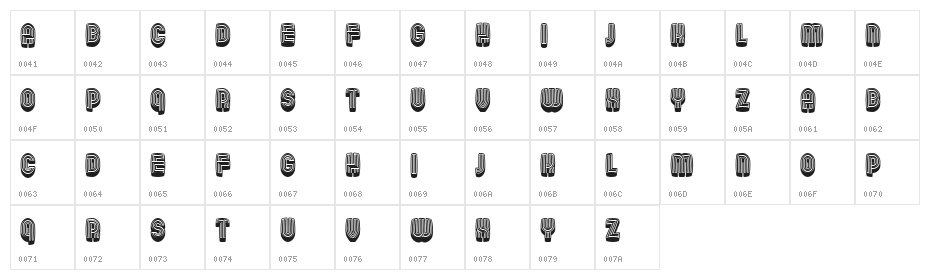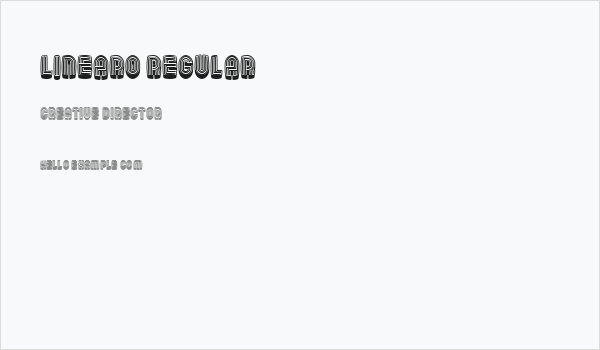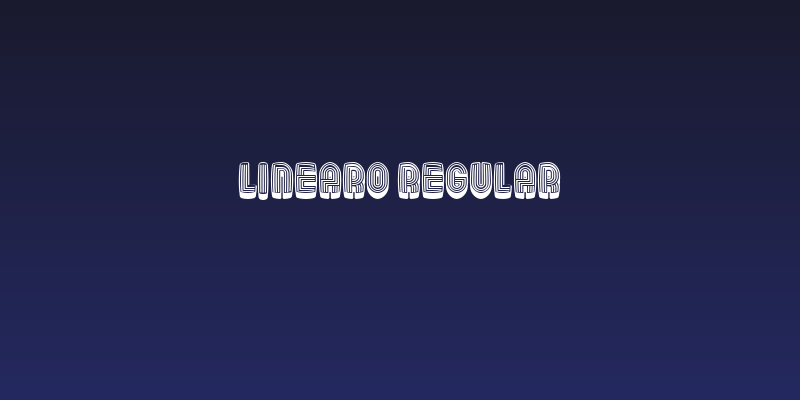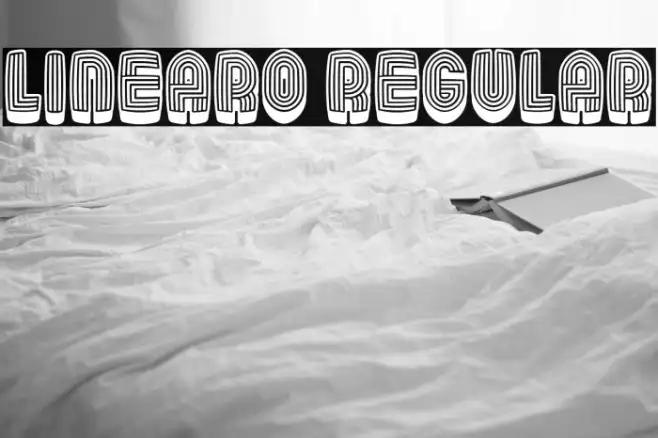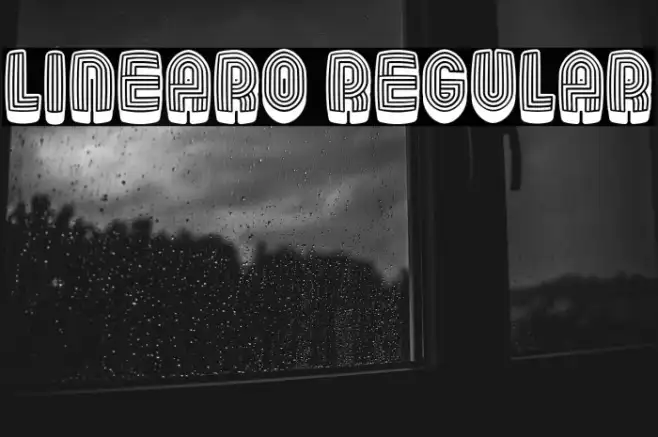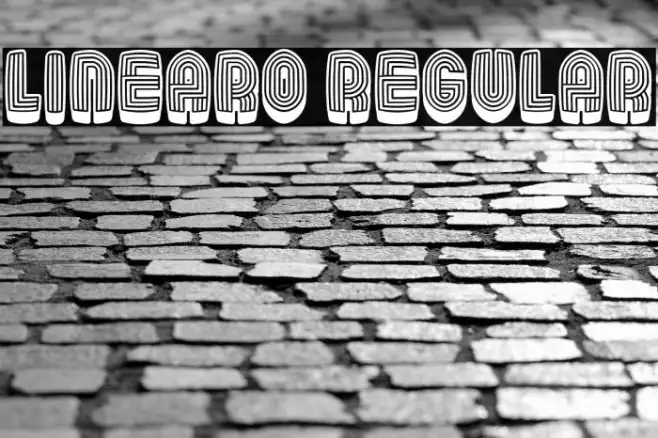
Linearo Regular Font
Linearo Regular Description
This font features a bold, decorative style with a unique, layered outline effect. Each character is composed of multiple parallel lines, creating a sense of depth and dimension. The uppercase letters are uniform in height, with a consistent width that gives the font a balanced appearance. The design is playful yet structured, making it suitable for eye-catching displays. The font's intricate detailing and bold presence make it stand out, ideal for projects that require a strong visual impact. Its geometric shapes and repetitive patterns contribute to a modern and dynamic aesthetic.
| Proposed Projects | Ideal for posters, headlines, logos, and any project needing a striking visual element. |